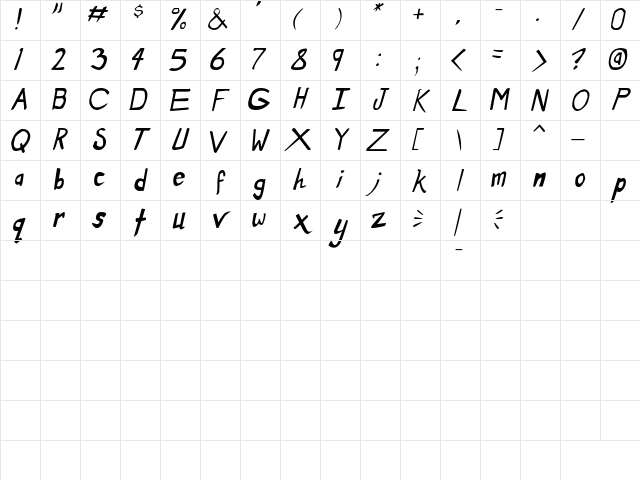
Dirty Duo Italic Free Font
Dirty Duo Italic
Design Context for Dirty Duo
Dirty Duo is a composed and adaptable typeface that performs quietly and consistently across a wide range of design contexts. The slanted form adds forward momentum and visual energy.
Pro Tip: Use Dirty Duo for emphasis, pull quotes, and subheadings where its slanted energy can add rhythm to the layout.